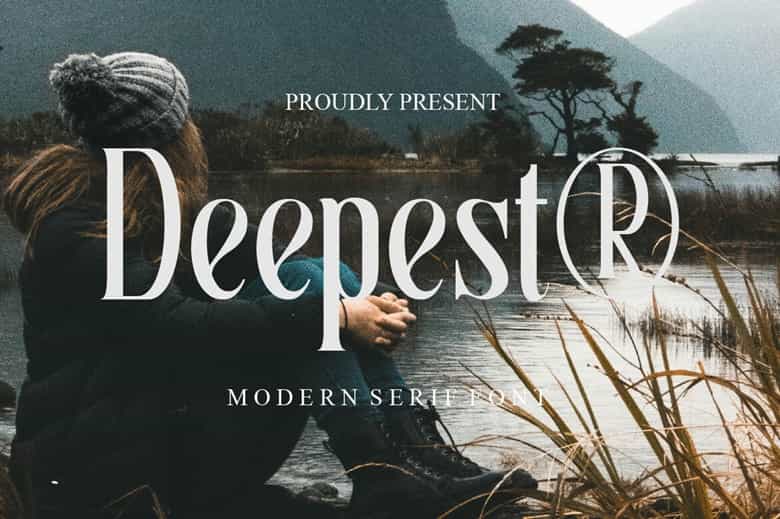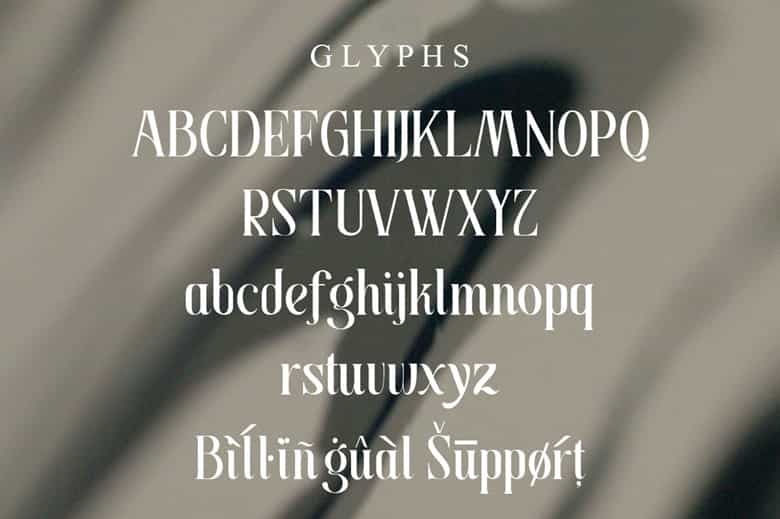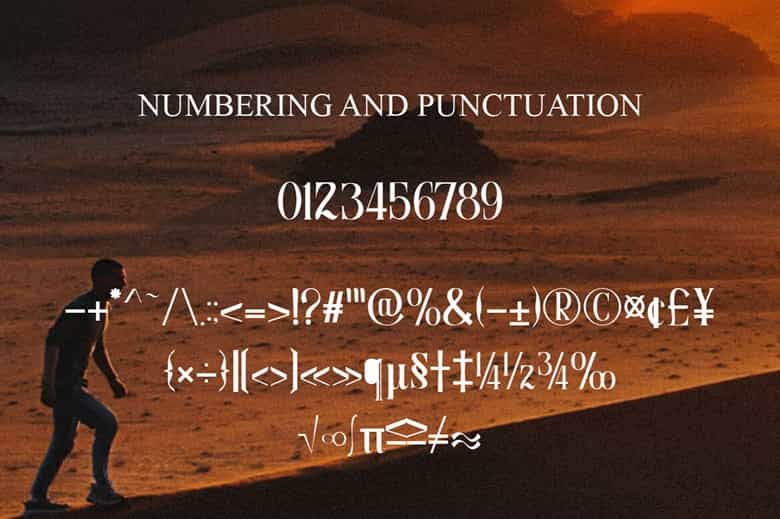
Deepest is a new serif font, that is the creation of Gunalocraft studio. This font can be used for a large number of different designs including logo designs, wedding, typography quotes for a magazine or book, website header, clothing, branding, packaging and many other designs. Get your designs to be more sophisticated and stylish with the Deepest font.